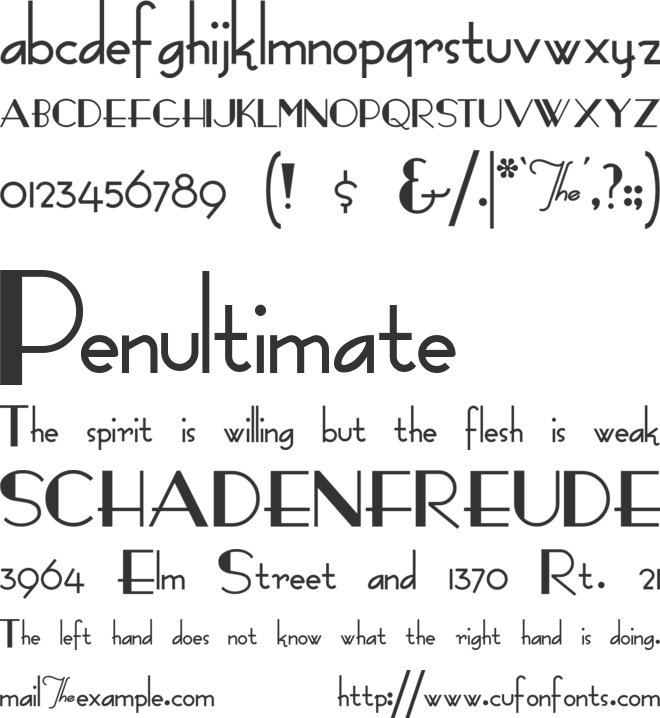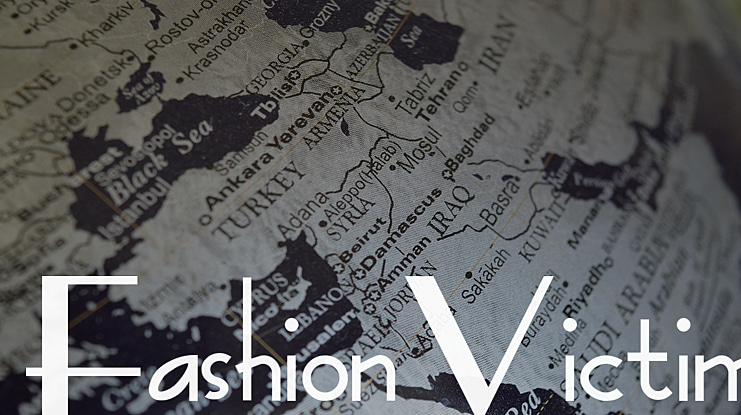
FashionVictim Font
An unabashed ripoff of Bernhard Fashion, an elegant — if anorexic — font. This version has been fattened up and Deco-fied (surprised?)